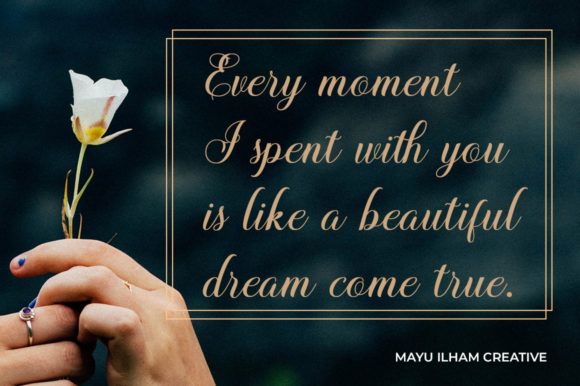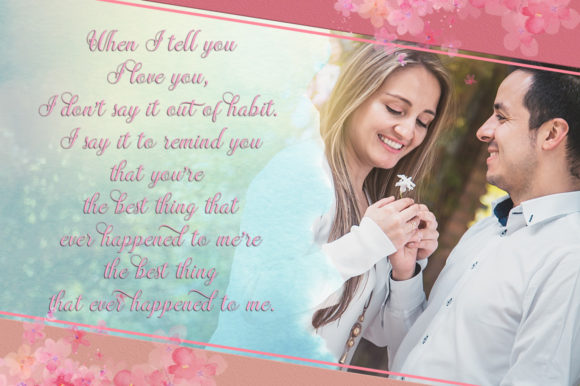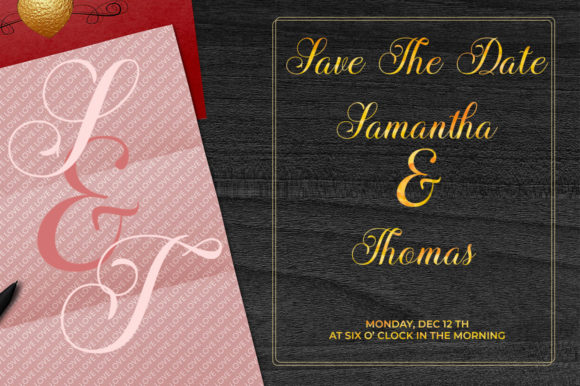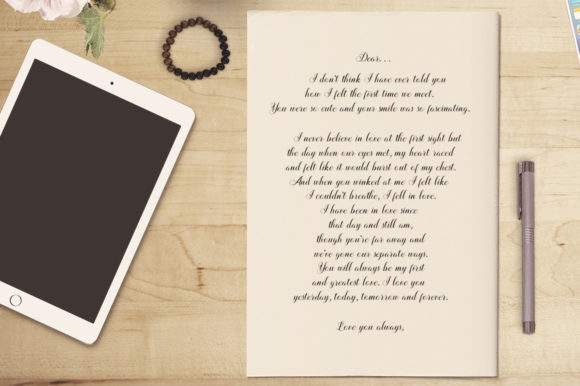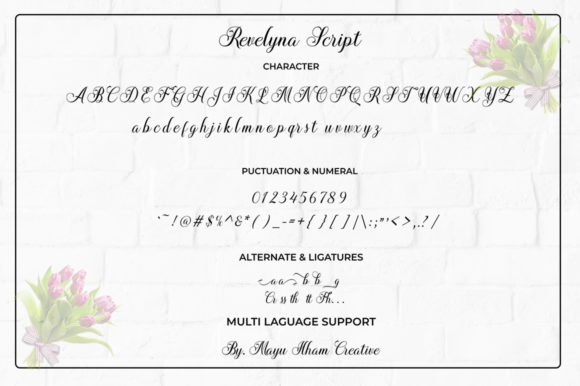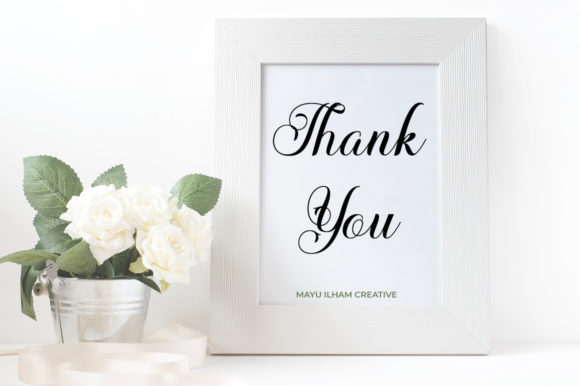
Introduction to Revelyna Font
Do you ever find yourself staring at a blank page, waiting for the perfect font to bring your creative project to life? I know I do. The right font can elevate your design from ordinary to extraordinary, and that’s exactly what the Revelyna Font does. With its beautiful calligraphy script, this stunning font adds an air of elegance and sophistication to any design.
As a designer, you’re always on the lookout for high-quality design resources that can give your work a unique touch. And that’s where the Revelyna Font comes in – a gorgeous script that’s perfect for any design that needs a romantic and classic appeal. Whether you’re working on a wedding invitation, a birthday card, or a branding project, this font is sure to impress.
Key Features of Revelyna Font
- High-quality design resource ideal for creative projects, with a modern and elegant aesthetic.
- Features a transparent background, allowing for seamless integration with any design element.
- Includes a range of characters and glyphs, making it suitable for a variety of design applications.
- Unique characteristics include its clean lines, sophisticated feel, and versatility, making it an excellent choice for designers.
Honest Review: Revelyna Font
I recently stumbled upon the Revelyna Font, and I must say it’s been a game-changer for my design projects. This free download has been a fantastic addition to my design resource library.
- High-quality design: The Revelyna Font boasts a clean and elegant design that’s perfect for creative projects.
- Transparent background: This feature allows for seamless integration with any background, making it a versatile choice for designers.
- Easy to customize: The font is highly customizable, making it easy to adapt to different design needs.
- ⚠️ Limited font styles: The Revelyna Font comes in a limited range of styles, which might not be suitable for projects that require a wide variety of font options.
Overall, I’m thoroughly impressed with the Revelyna Font. It’s a great addition to any design library, and its transparent background feature makes it a fantastic choice for creative projects. While it may have some limitations, I highly recommend giving it a try for your next design project.
Using in Creative Projects
With its transparent background, the Revelyna Font is perfect for adding a touch of elegance to your design. Whether you’re working on a creative project in Canva, Adobe Photoshop/Illustrator, or PowerPoint/Word, this font is sure to impress.
Getting the Most Out of Revelyna Font
To get the most out of the Revelyna Font, be sure to use it in combination with other design elements that complement its unique style. Experiment with different font sizes, colors, and arrangements to find the perfect look for your project.
The Revelyna Font is versatile and can be used in a variety of projects, including:
- Web design and digital graphics